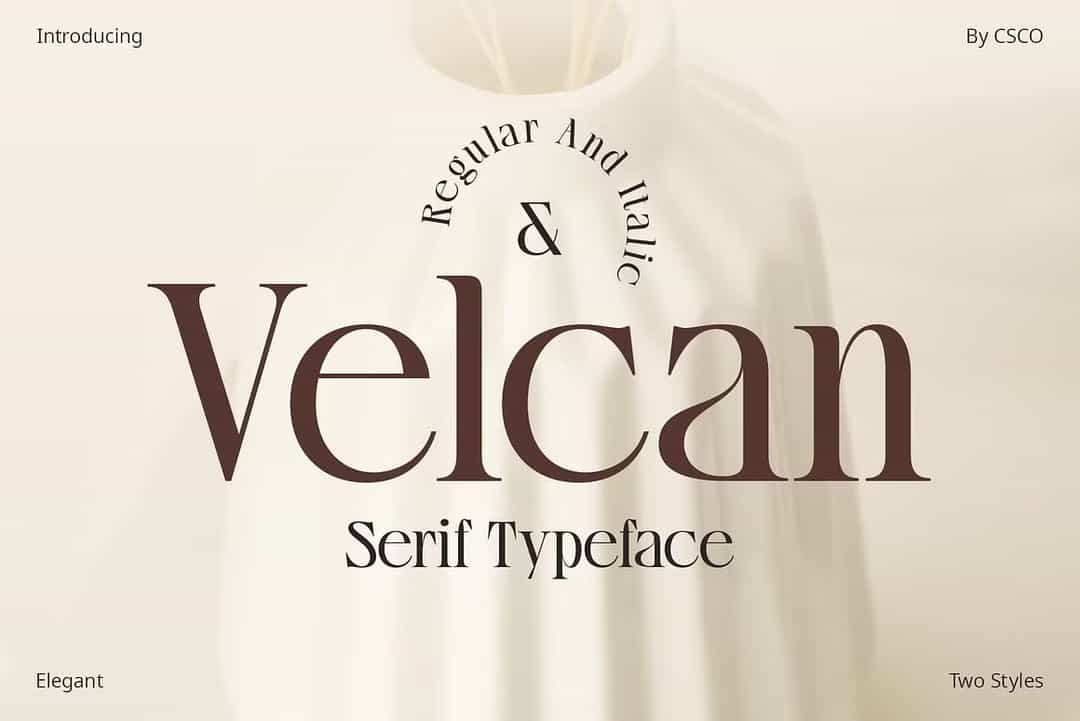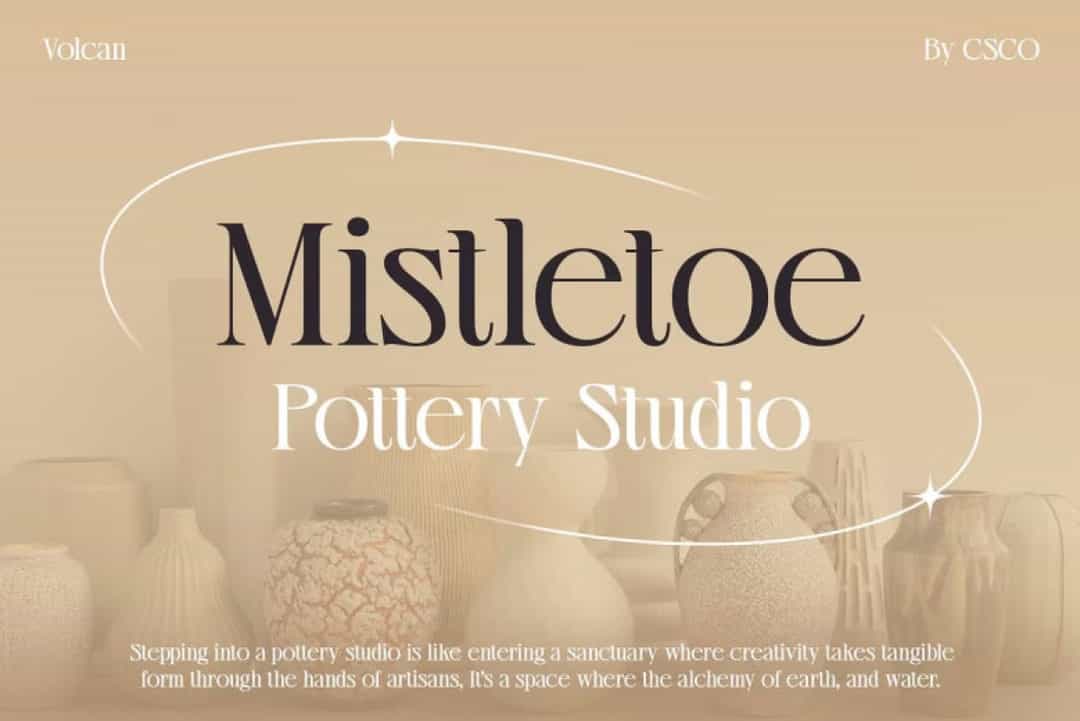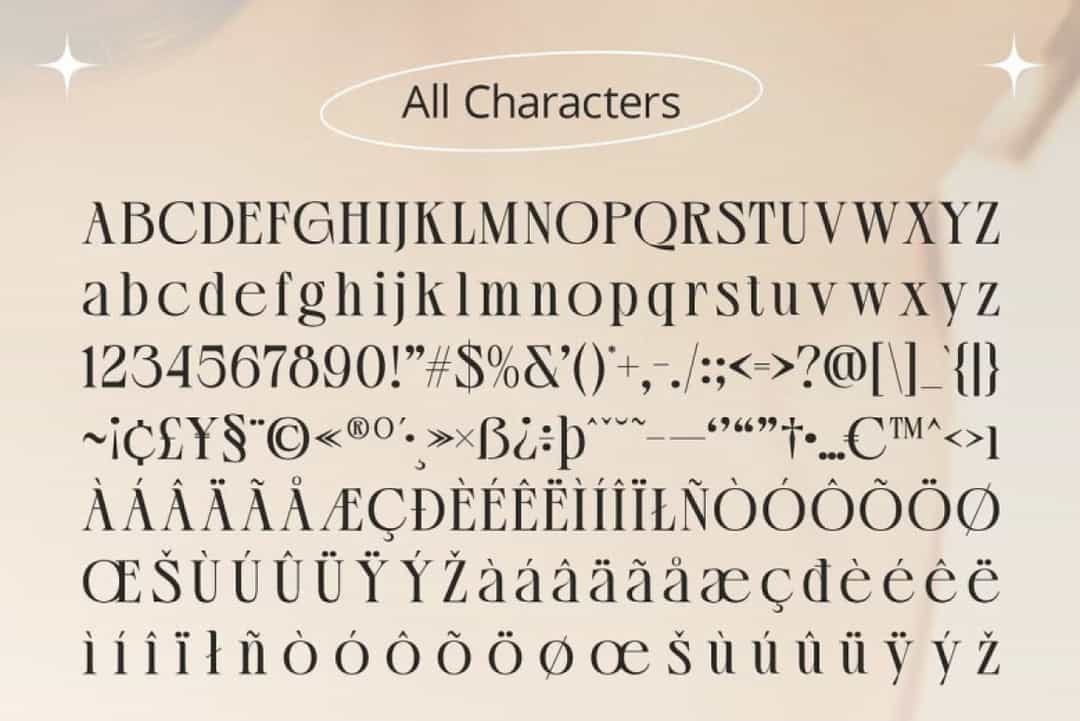
Elegance Velcan, an eye-catching serif typeface, will impress any viewer with its graceful grace and vibrant dance of serifs and curves that bring an exquisite edge to any design project. Velcan stands out from other fonts by its extreme contrast. Each letter in this font is an artistic masterpiece created to achieve timeless style.